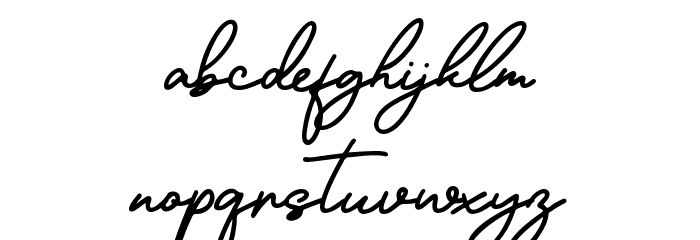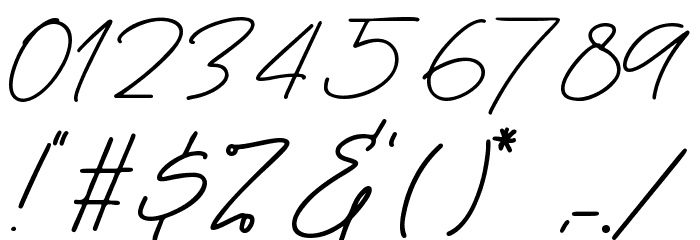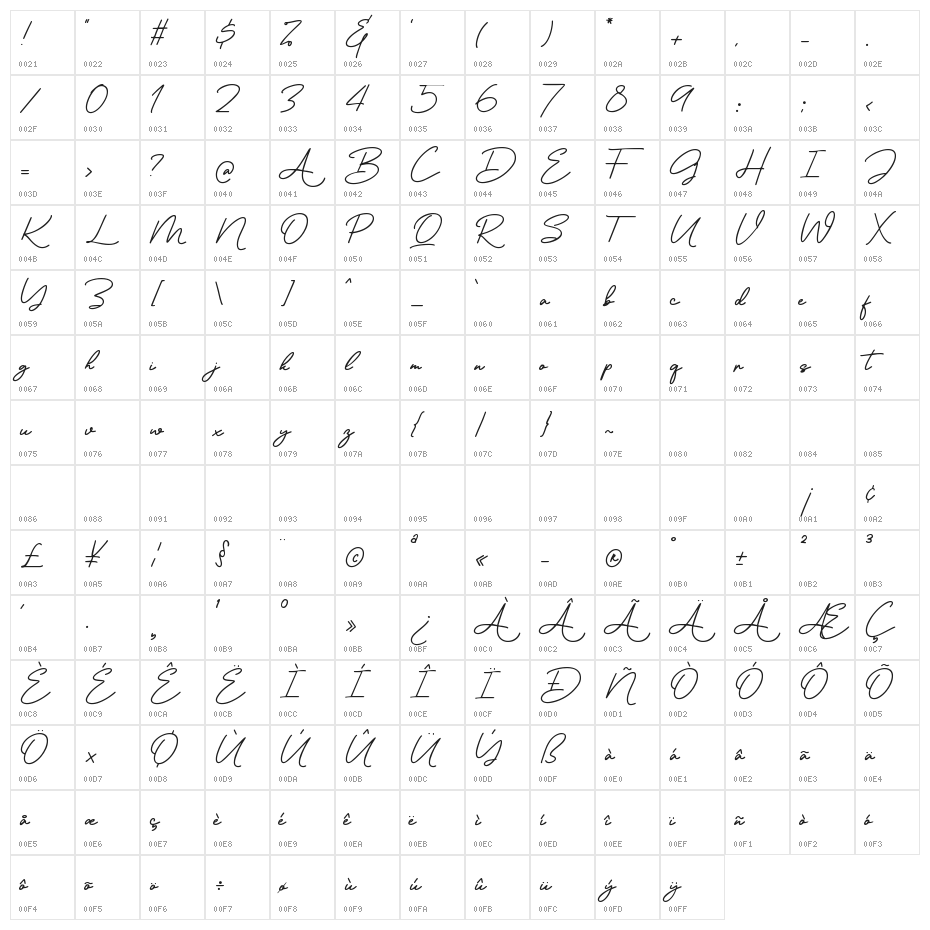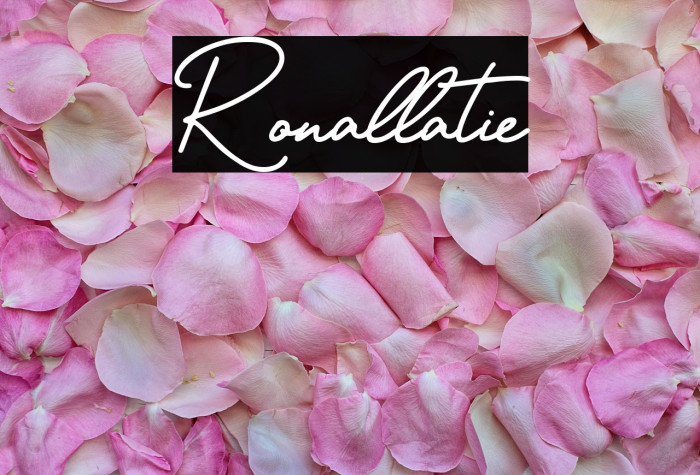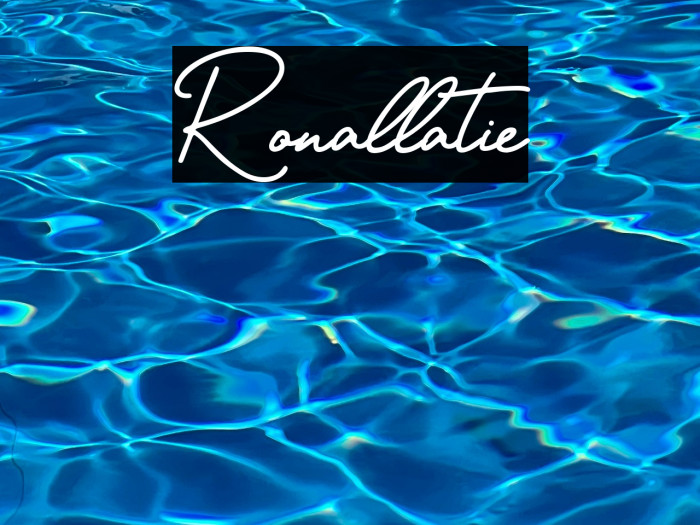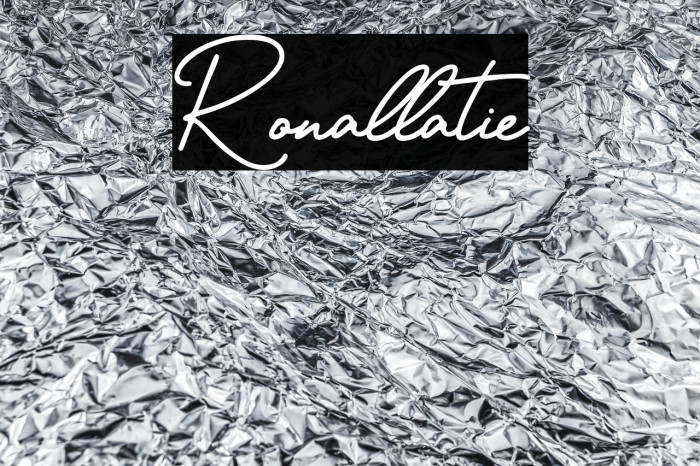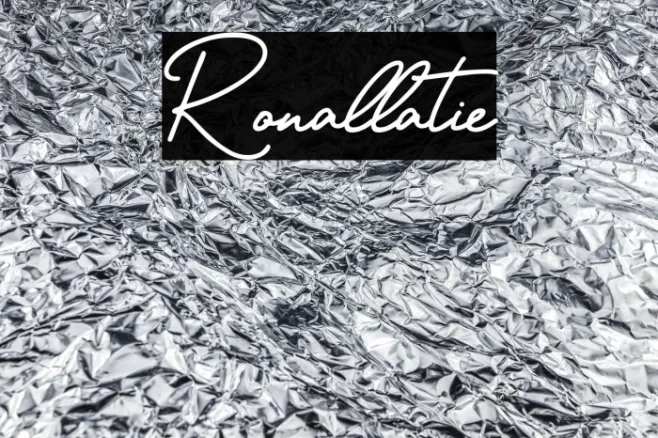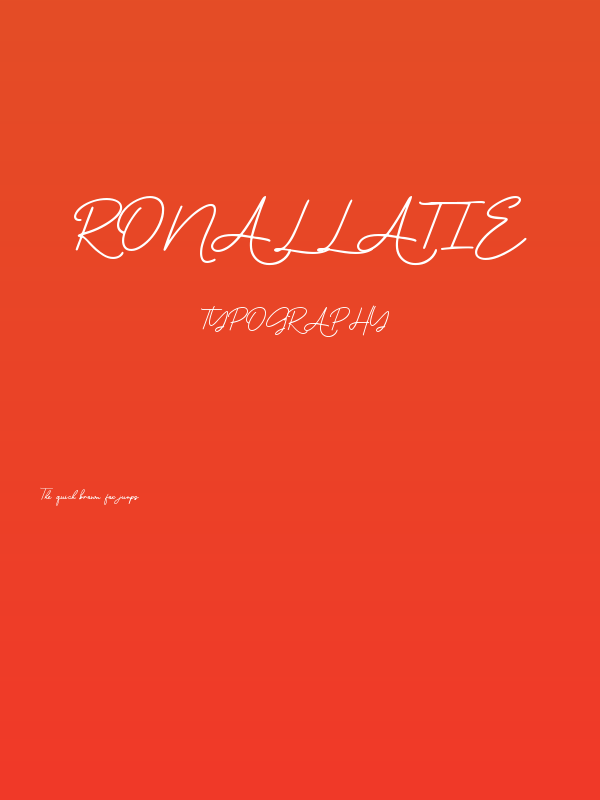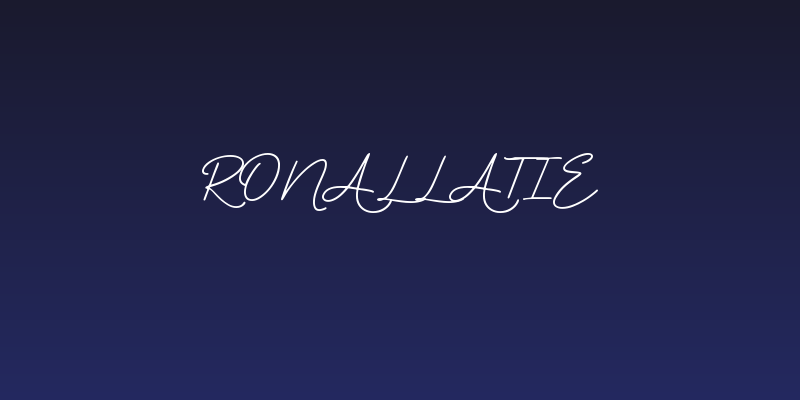
Ronallatie Font
This font exudes a casual elegance with its flowing, cursive style. The uppercase letters are slightly more structured, maintaining a balance between formality and playfulness, while the lowercase letters are more fluid and connected, enhancing the script's natural handwriting feel. The numerals are consistent with the overall style, featuring smooth curves and a slight slant that complements the letters. Special characters are thoughtfully designed to match the font's aesthetic, ensuring a cohesive look across all text elements. This font is versatile, suitable for both personal and professional projects where a touch of sophistication is desired.
A cursive script font with a casual yet elegant style.
- Proposed Projects: Ideal for wedding invitations, personal branding, greeting cards, and elegant logos.
- Overall Style: Elegant, Casual
- Use Case: Logos, Invitations, Personal Branding